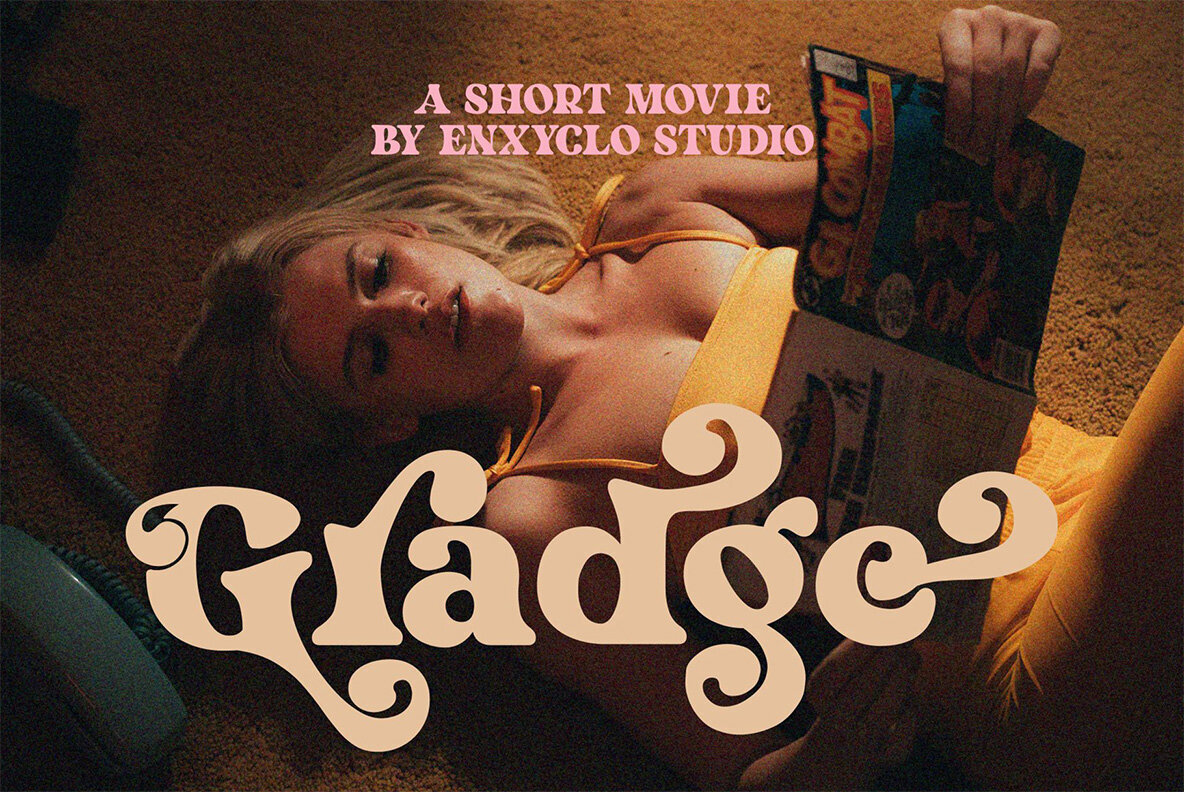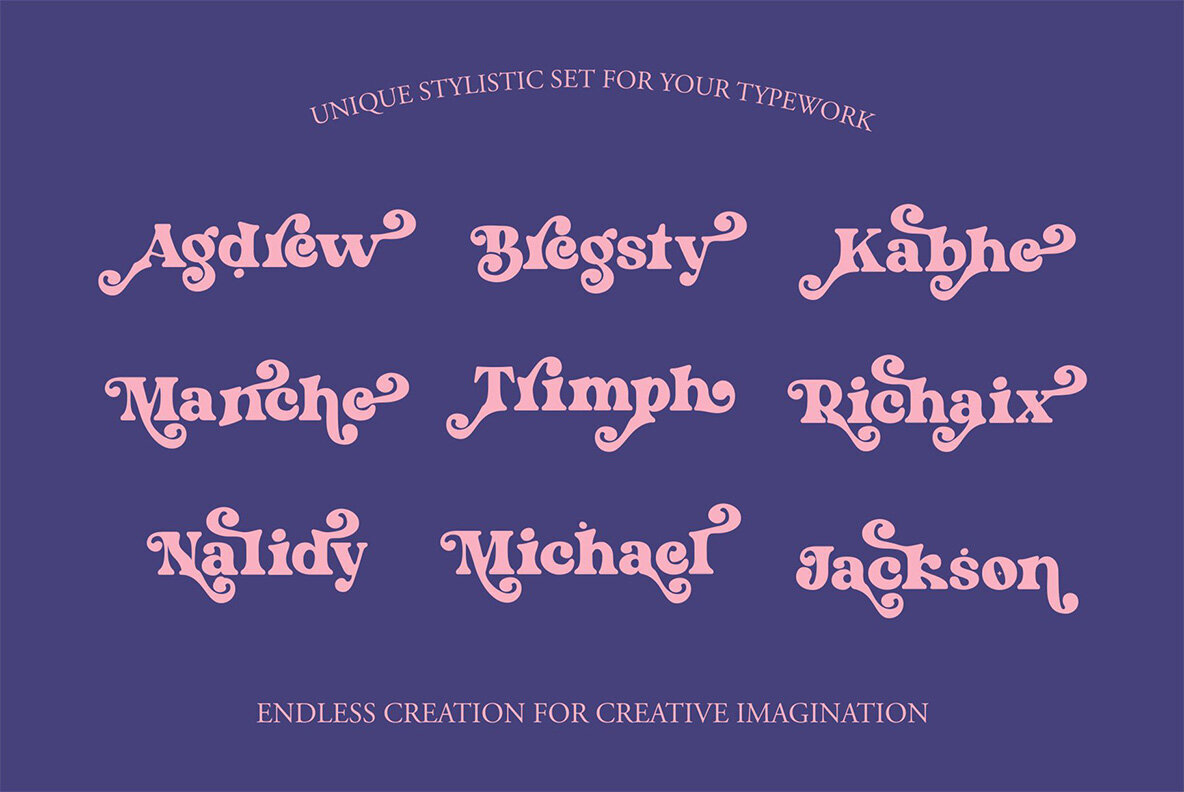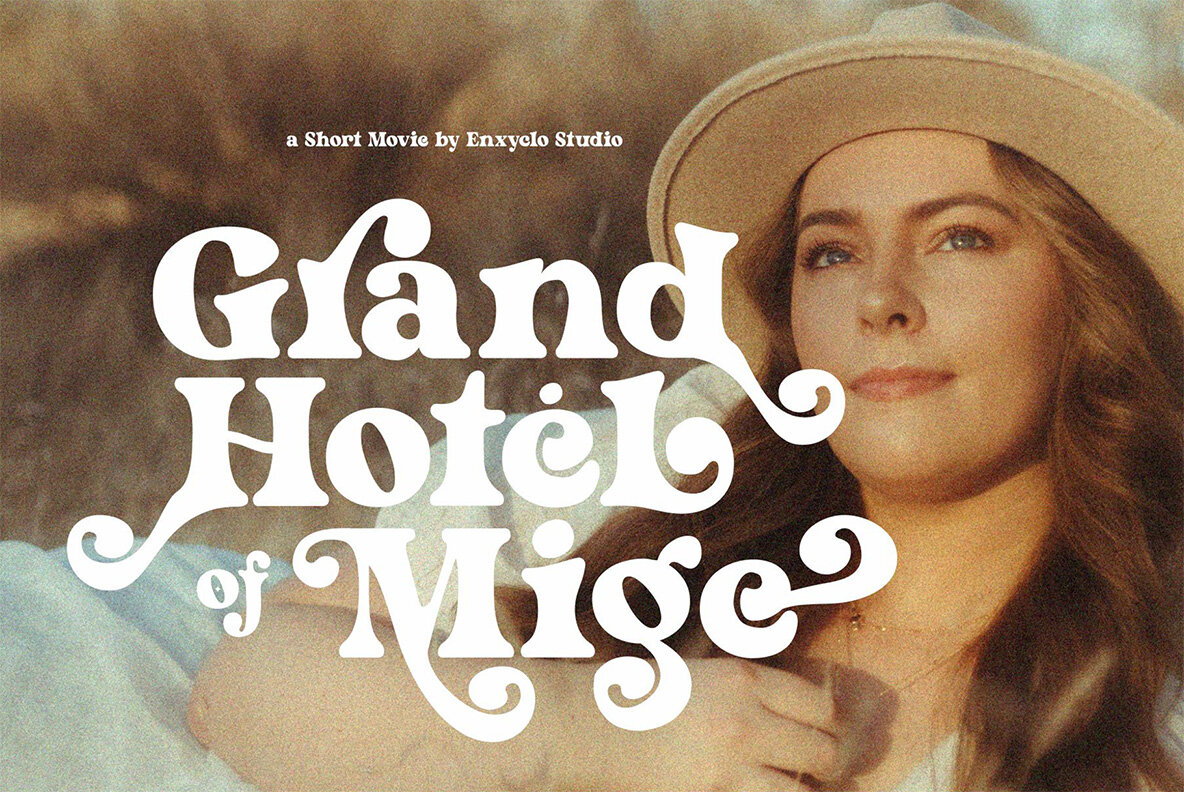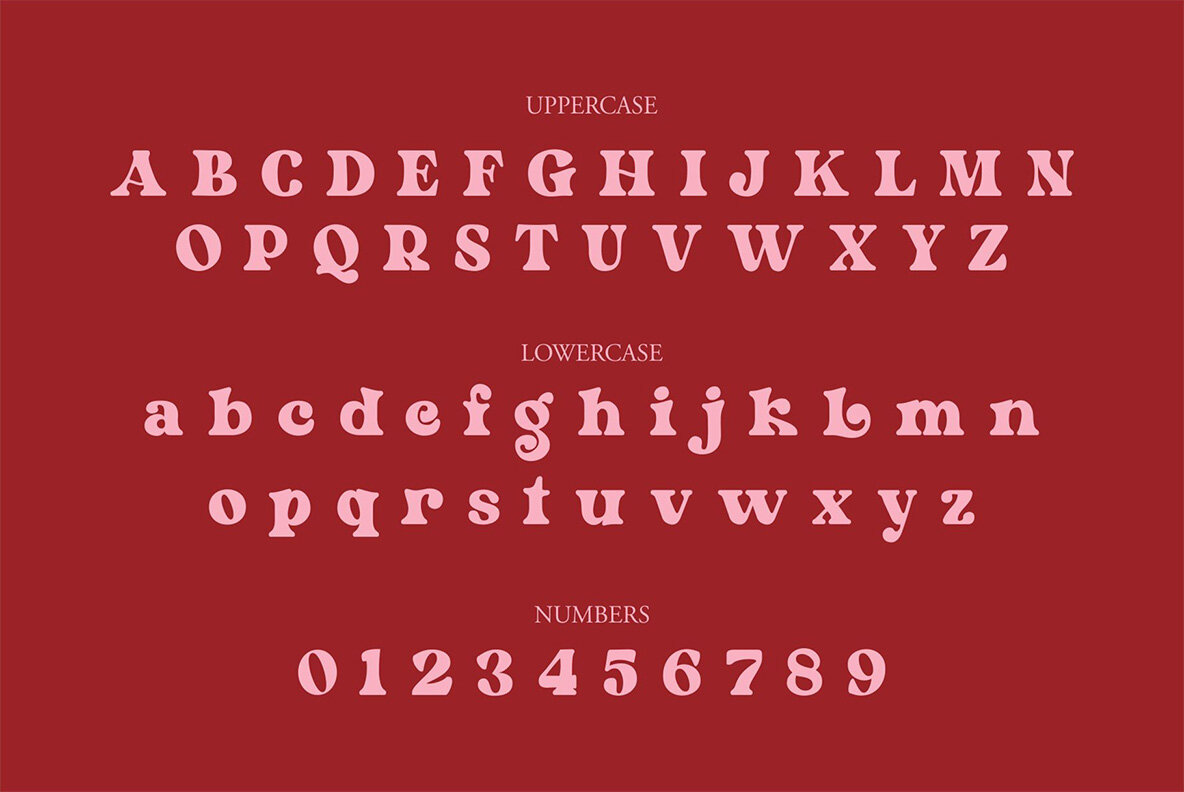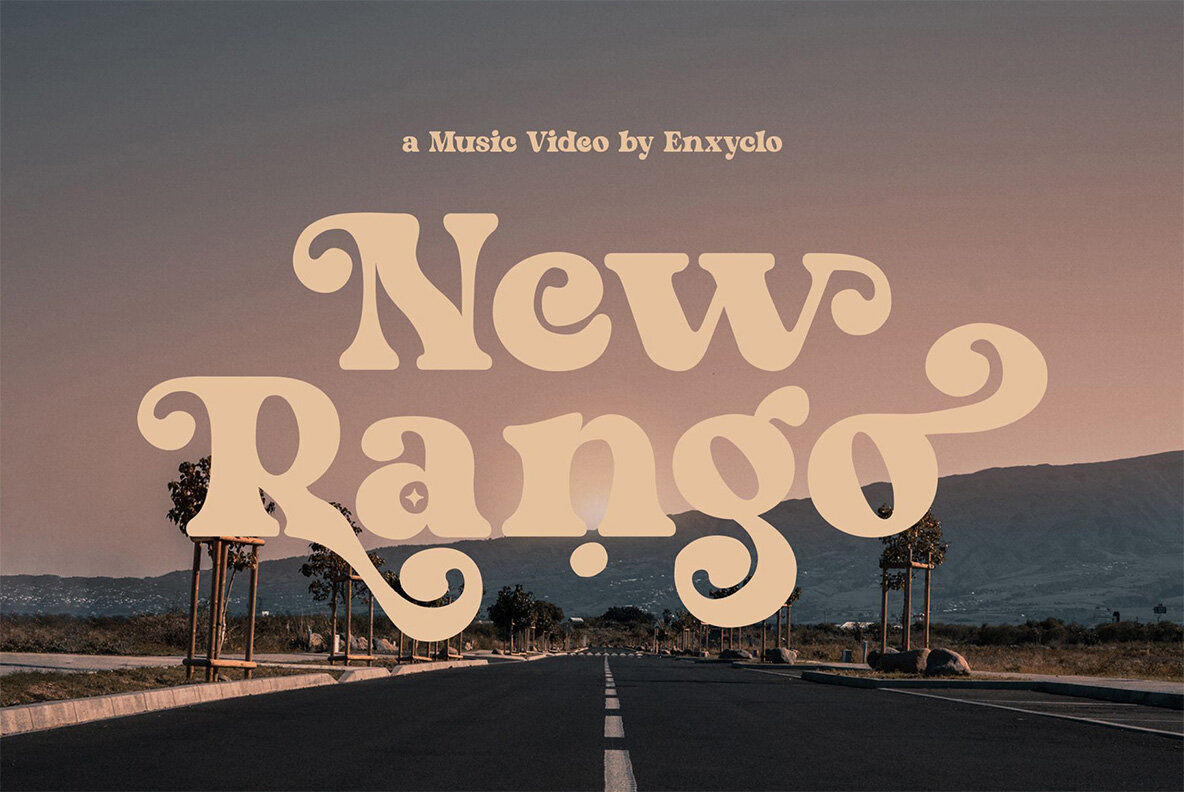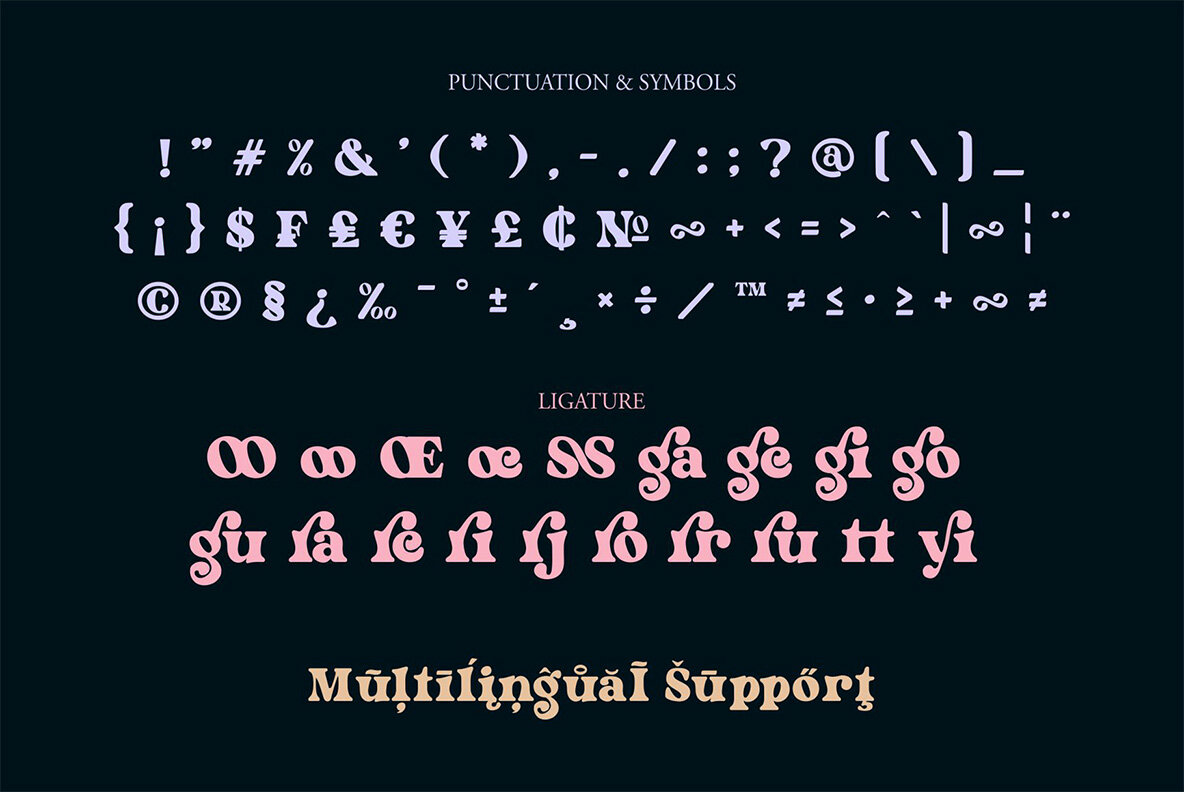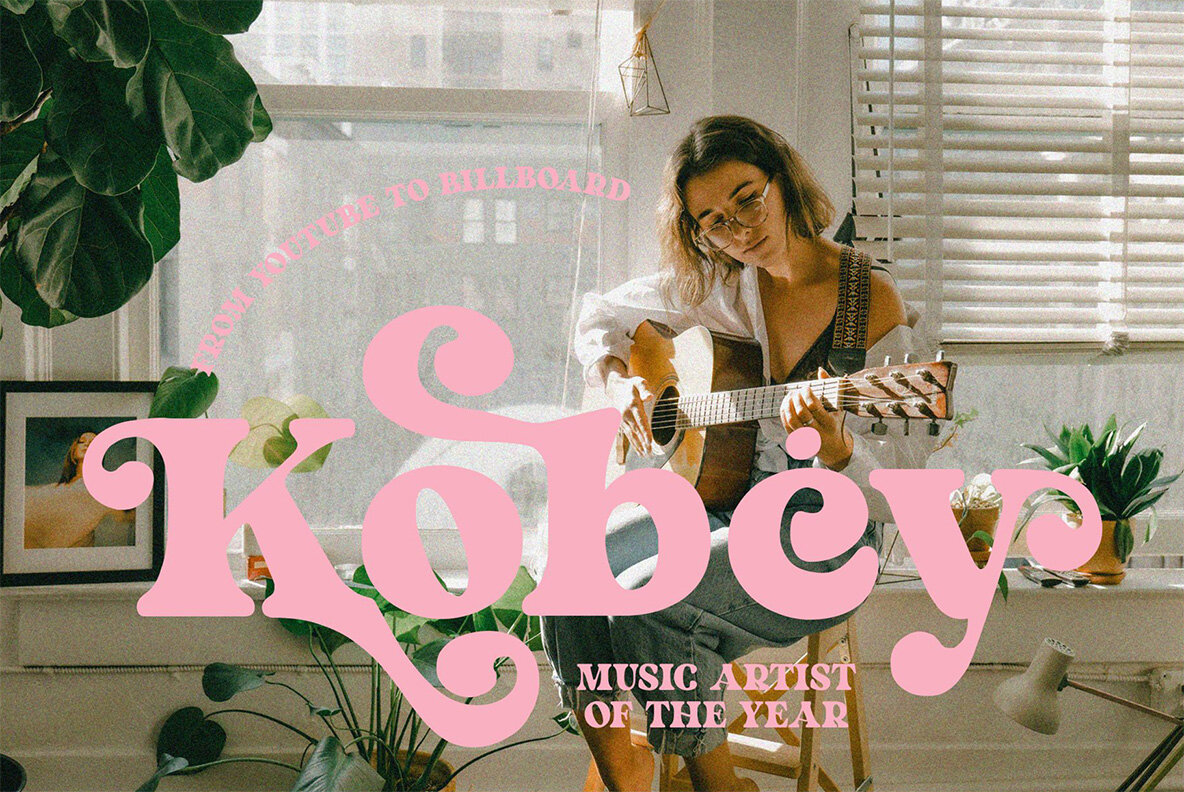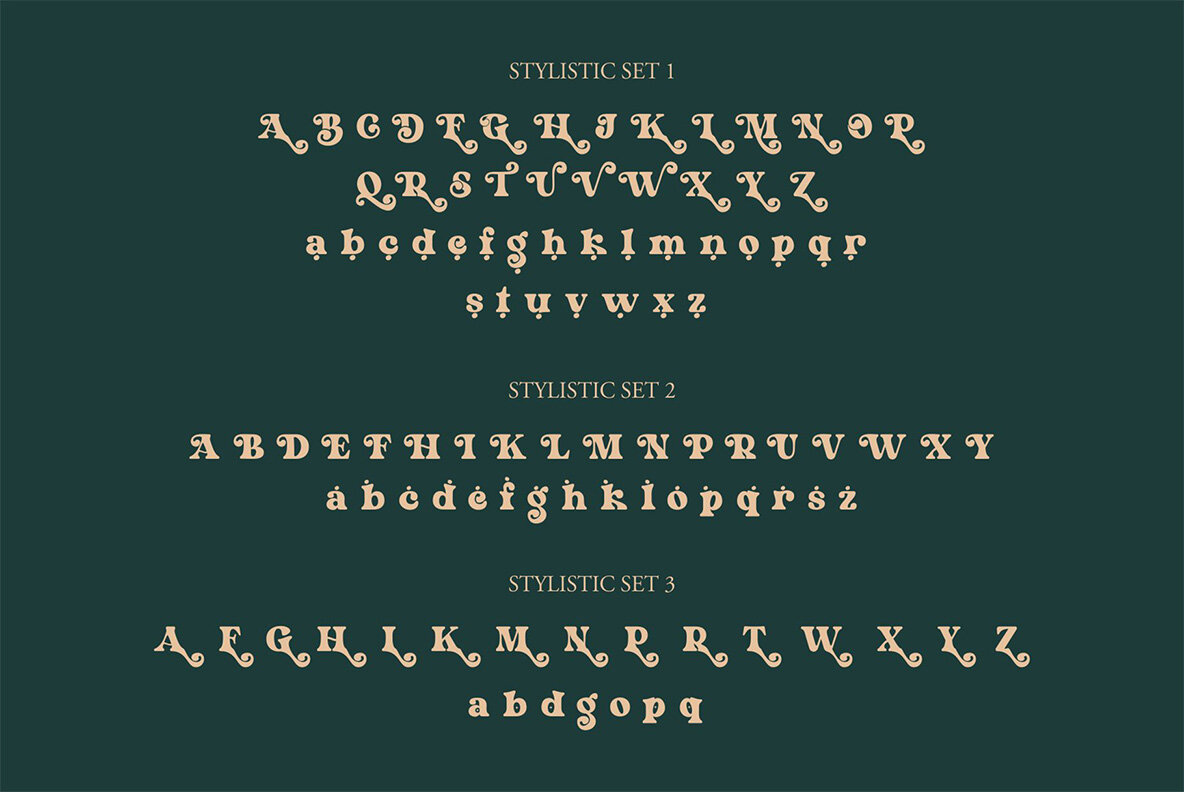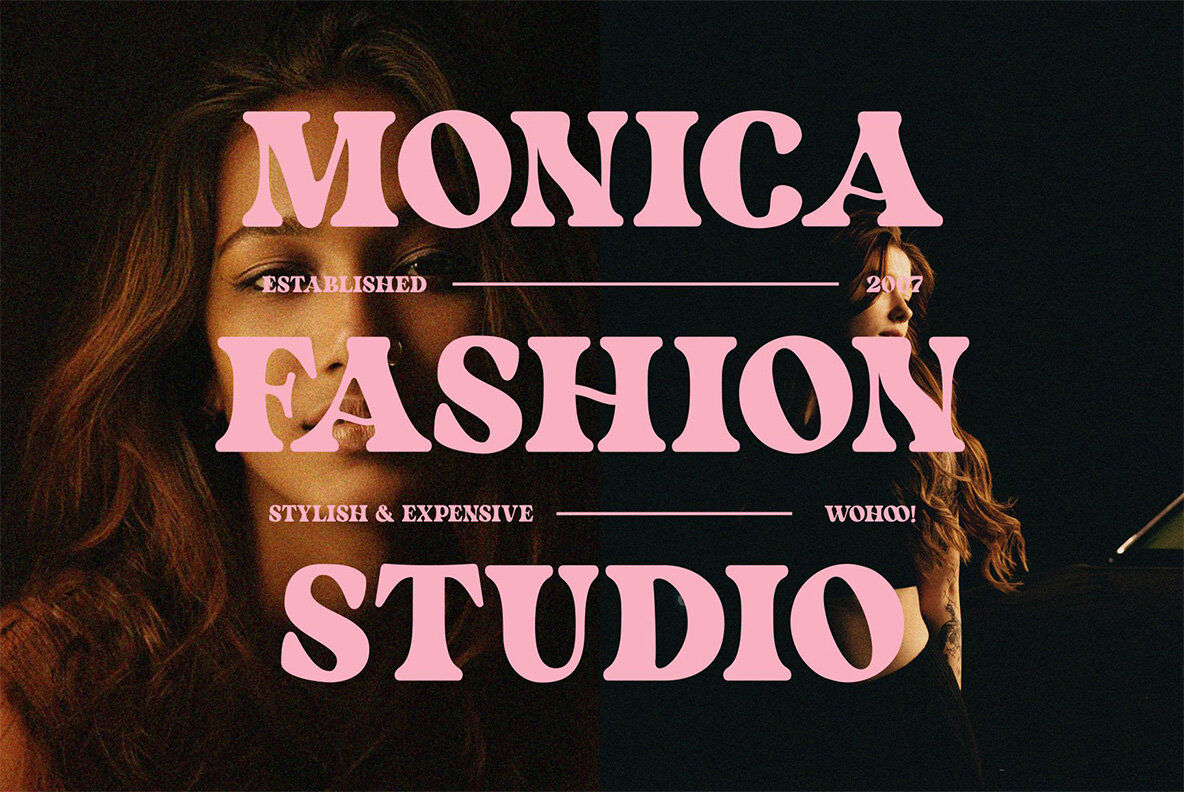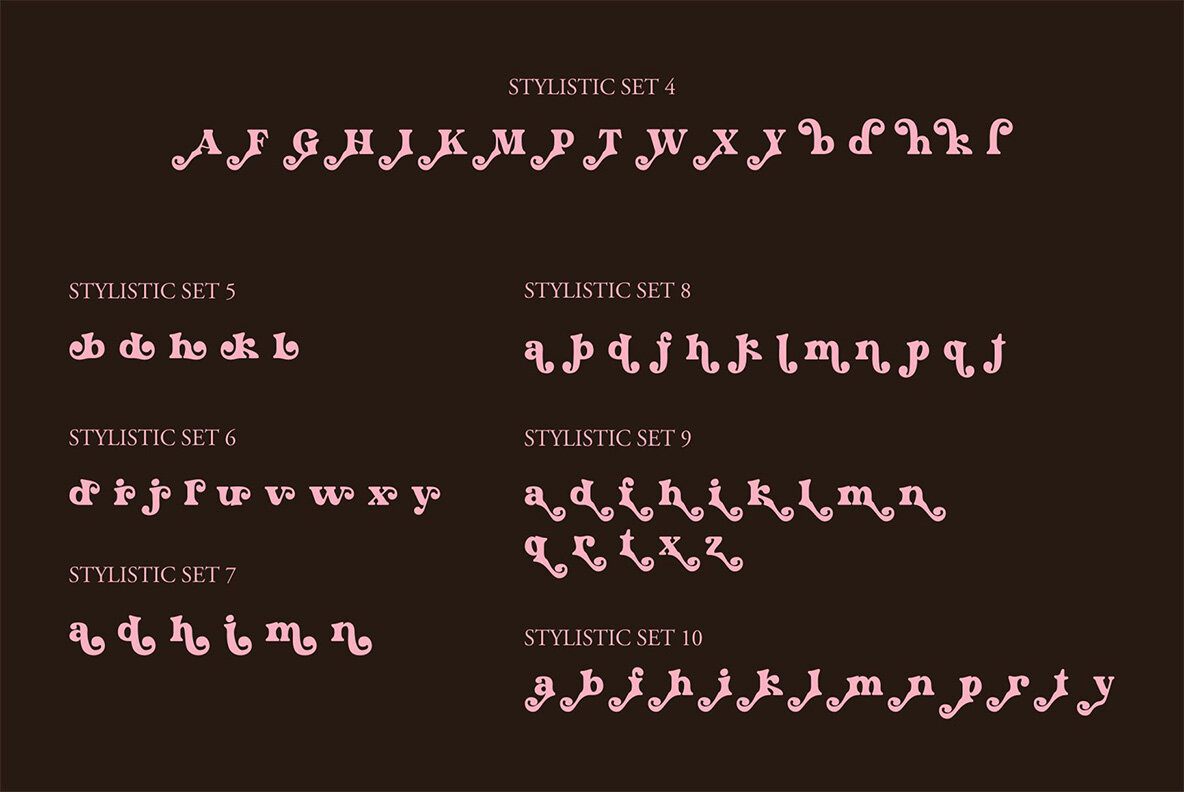
NCL Kerih Moady Font
NCL Kerih Moady Regular
NCL Kerih Moady is a retro groovy bold font. Masterfully designed to become a true favorite, this font has the potential to bring each of your creative ideas to the highest level! It was purposely crafted to be used in large point sizes, although it doesn’t lose its magic in small point sizes. It is perfect for wedding, headline, billboard, magazines, website, titles, poster, branding, and logos. No matter the topic, this font will be an incredible asset to your fonts’ library, as it has the potential to elevate any creation. With this beautiful font, absolutely you can make your project stand out from the rest. Contains 605 Glyphs Uppercase & Lowercase Numeral, Punctuation & Symbols Special Ligatures Stylistic Set 1-13 Multilingual Support